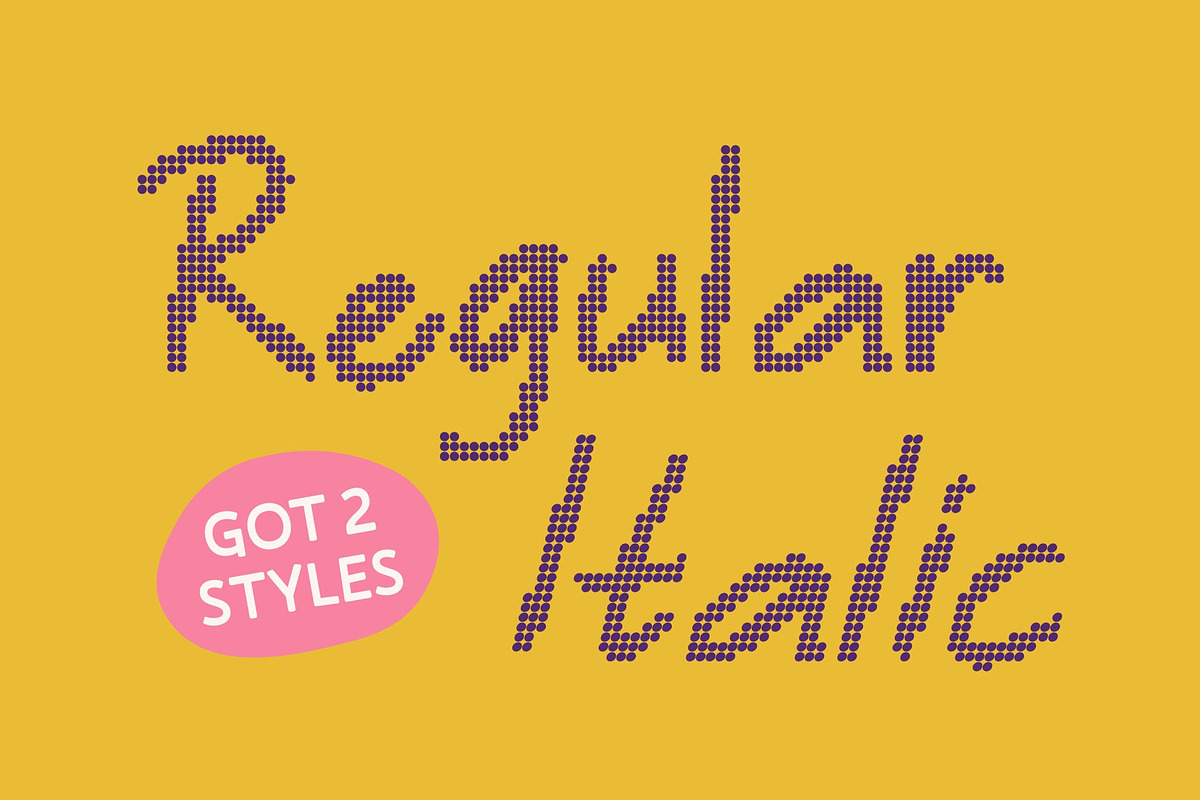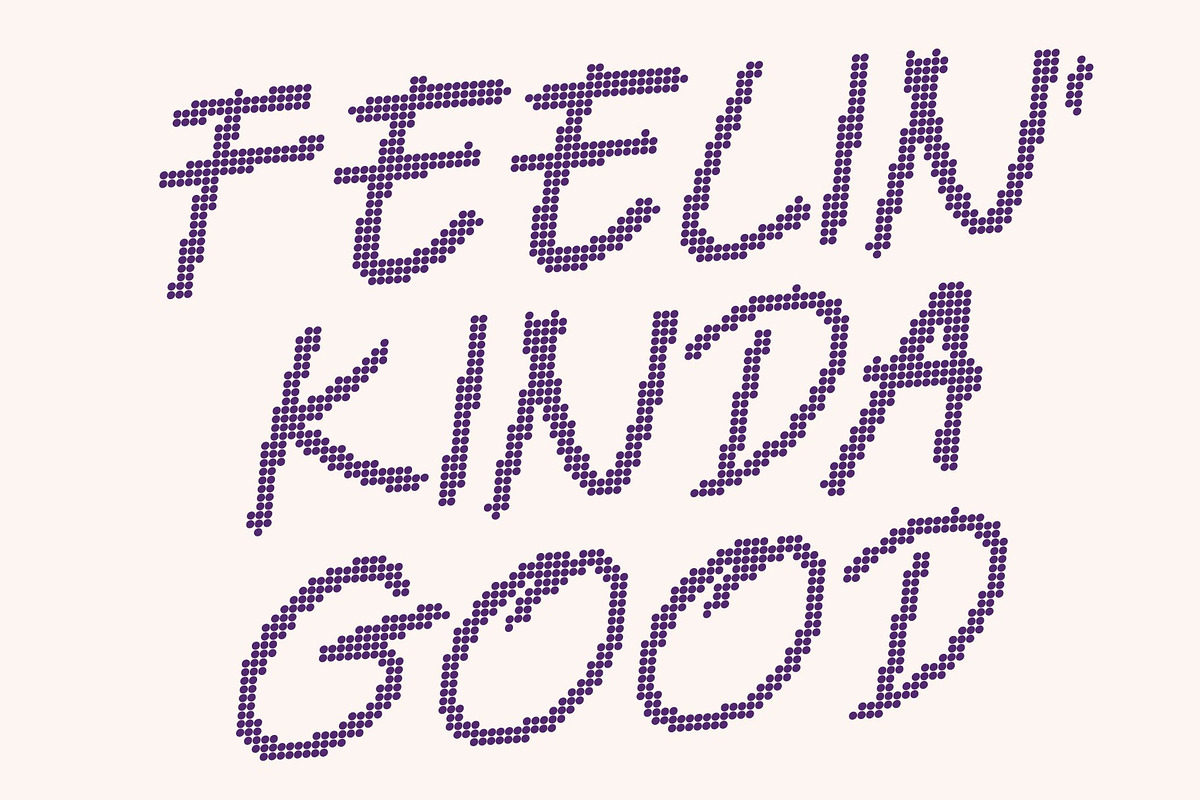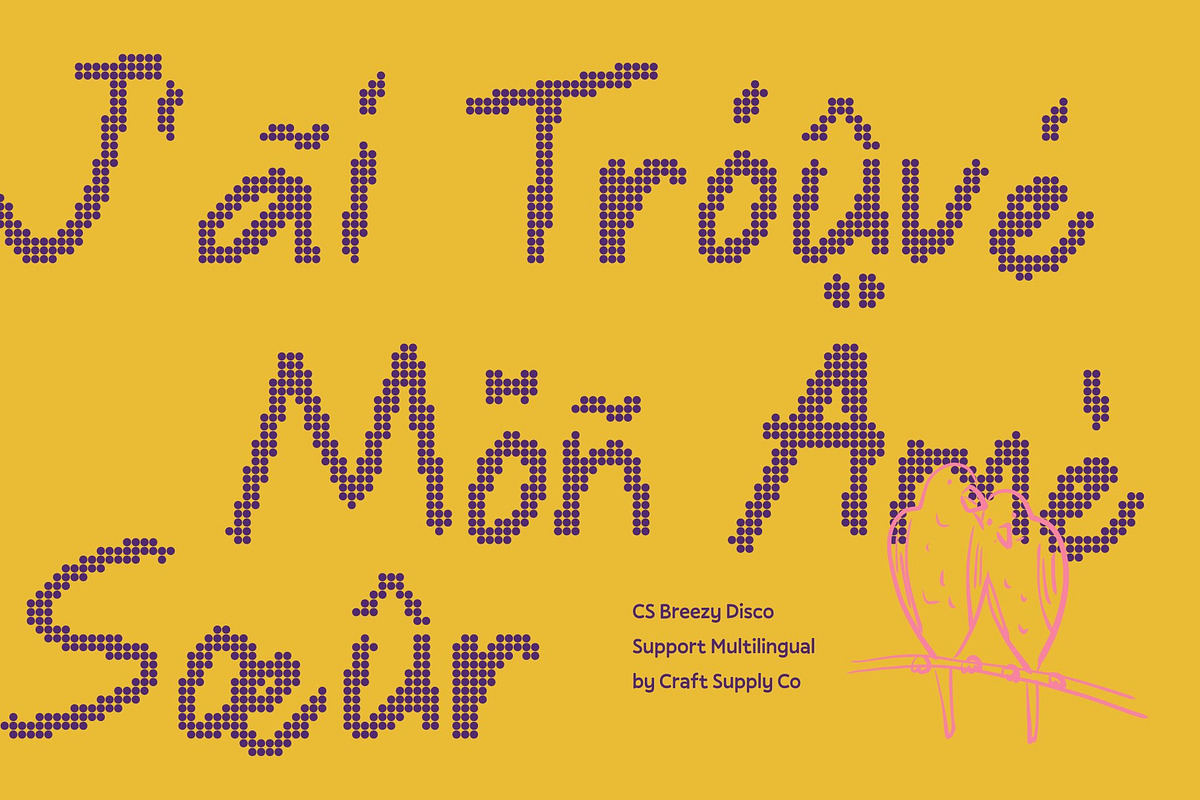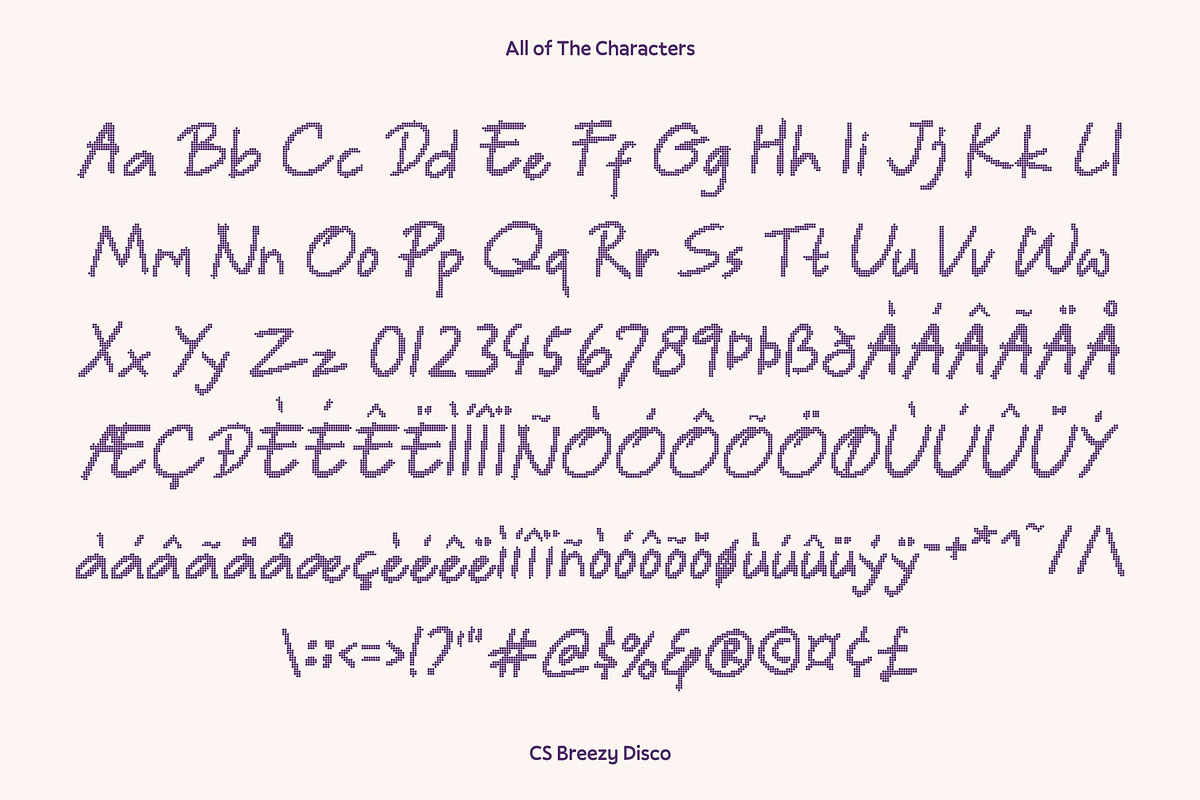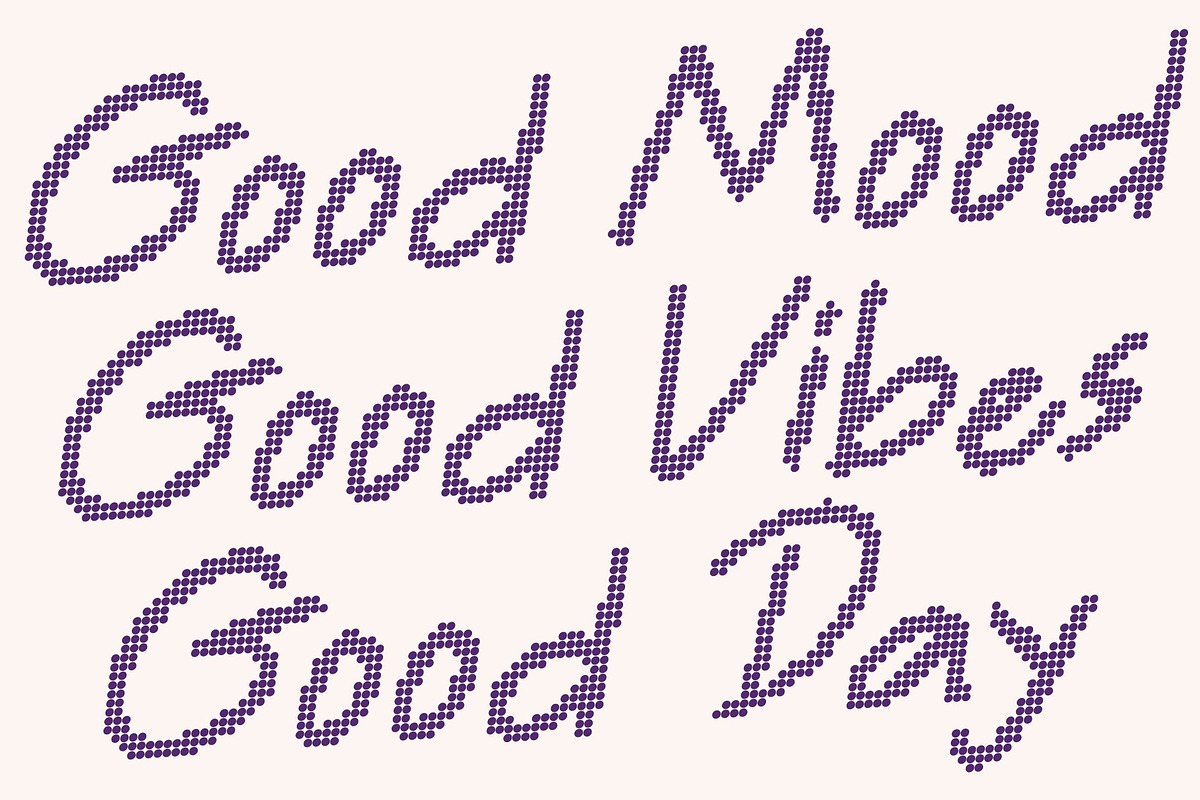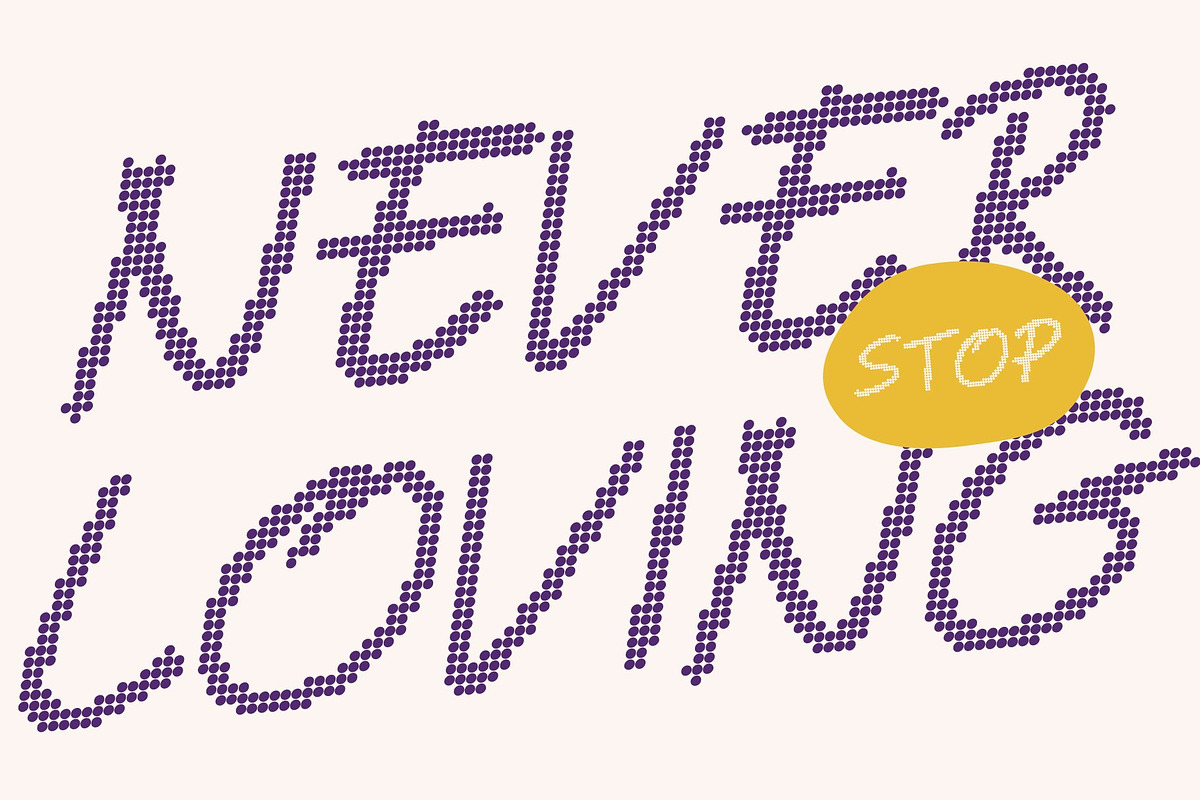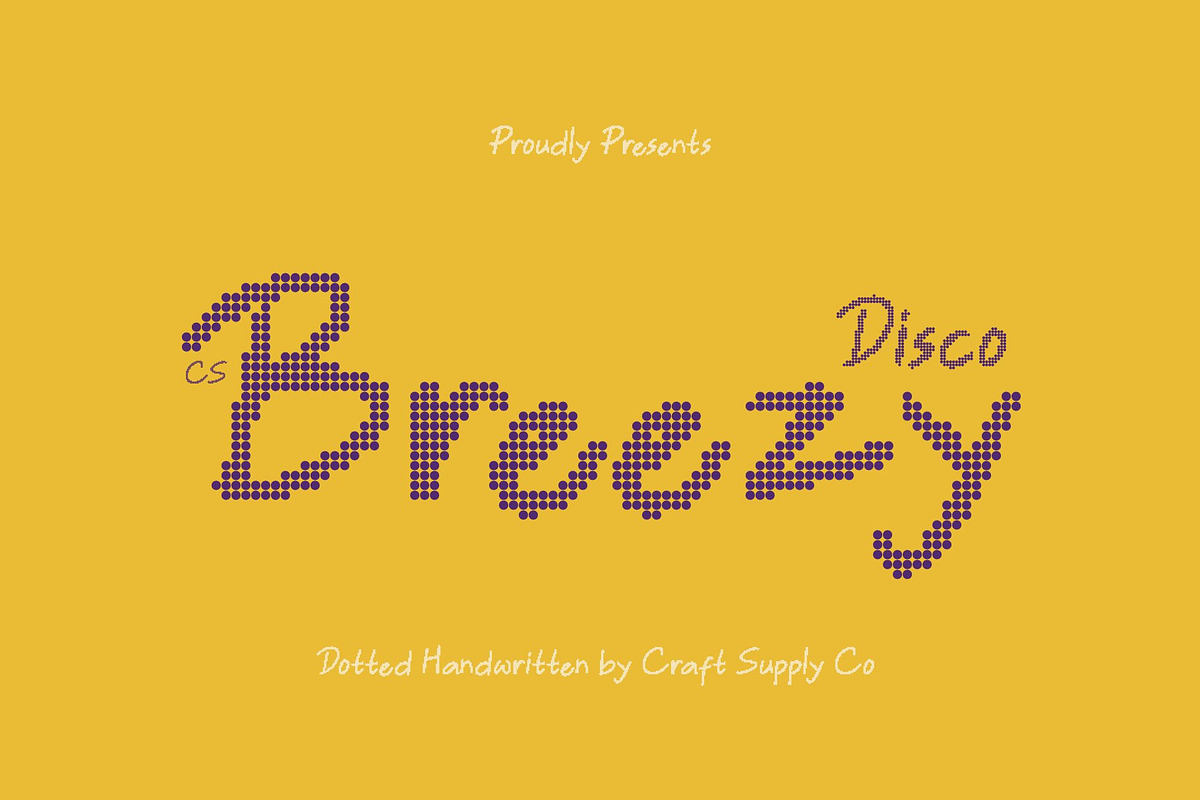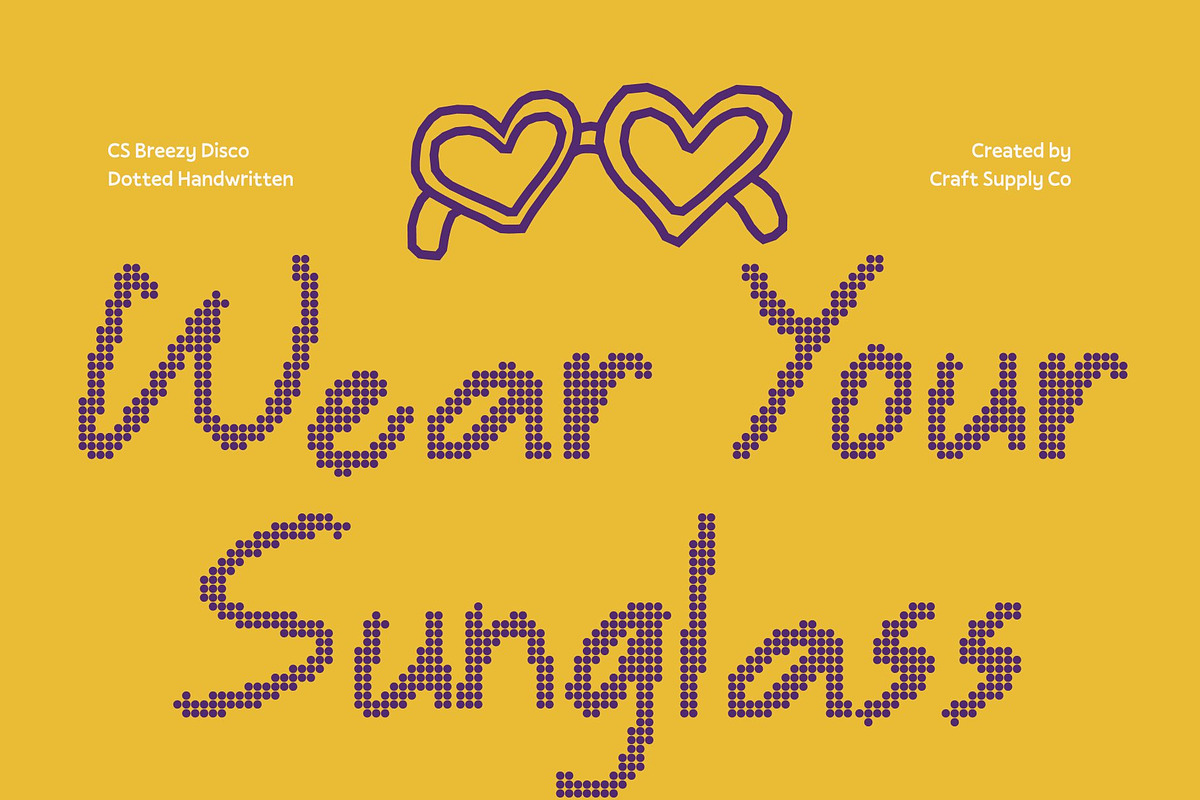
CS Breezy Disco
CS Breezy Disco – Fresh Energy with a Handwritten Retro Touch
Handwritten Sans Serif Font with Disco Springtime Vibe This is a bright and lively handwritten sans serif font that captures the essence of freshness and renewal, enhanced with a gentle disco-era spirit. Its clean yet playful strokes radiate uplifting energy, reminiscent of spring blossoms mixed with the carefree optimism of the 70s to early 80s. The result is a font that feels breezy, joyful, and full of positive motion.
Playful Simplicity with Retro Warmth The sans serif structure keeps the look modern and uncluttered, while the handwritten flow introduces warmth and personality. This balance of clarity and spontaneity creates a light, airy rhythm, giving designs a cheerful retro glow without feeling heavy or nostalgic.
Spring-Inspired Character with Disco Cheer This font embodies the vibrant, renewing spirit of spring with a soft disco twist. Each letter dances gently, evoking natural beauty, positivity, and relaxed joy. It’s perfect for seasonal campaigns, wellness brands, lifestyle visuals, and creative content that wants to feel fresh, friendly, and uplifting.
Perfect for Greeting Cards, Invitations, and Cheerful Designs From seasonal branding and social media graphics to invitations and greeting cards, adds joyful elegance to every layout. Its airy handwritten style works beautifully across digital and print designs making every message feel light, welcoming, and effortlessly full of life.